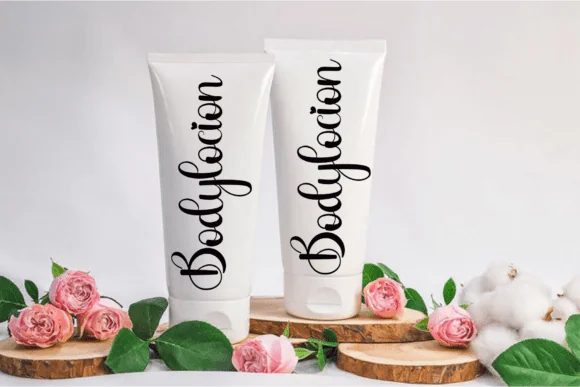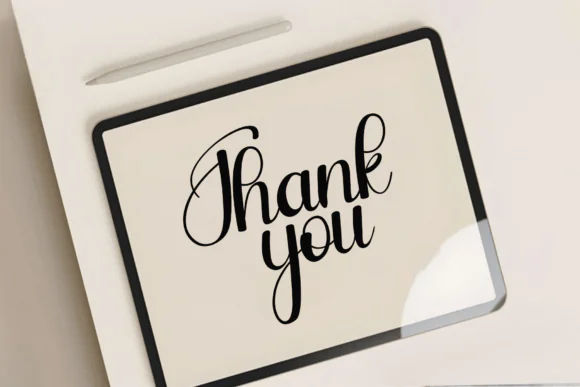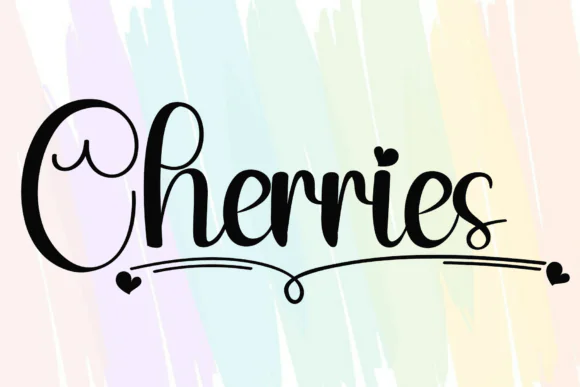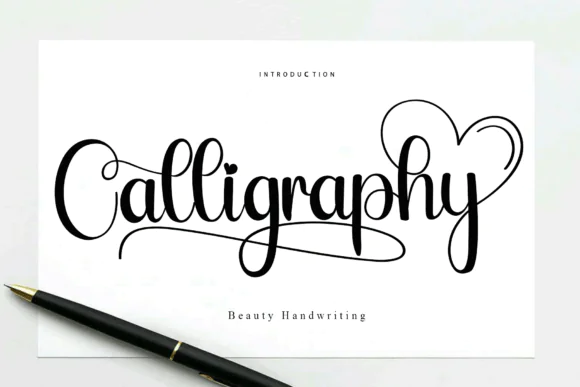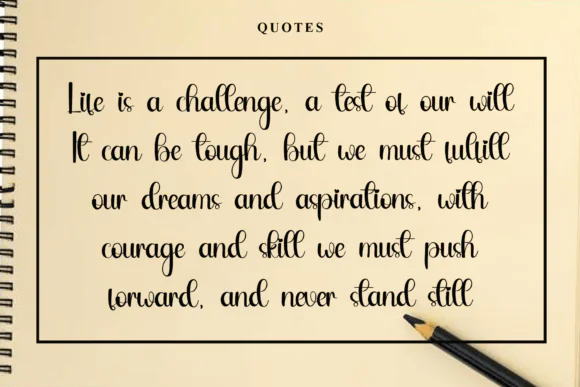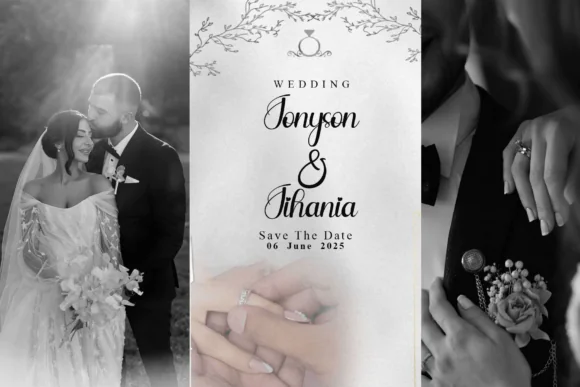
Add a soft, romantic, and elegant handwritten touch to your creative projects with Calligraphy Font, a sweet cursive script typeface designed to make your designs feel joyful, graceful, and personal. Its gentle handwritten style gives every project a fancy yet casual look, making it suitable for both formal and everyday creative designs.
This font is perfect for designers, wedding creators, boutique brands, small business owners, crafters, digital sellers, and print-on-demand creators who want to create stylish typography with a romantic handmade feel. It works beautifully for branding, logos, wedding designs, greeting cards, fashion projects, lookbooks, marketing promotions, invitations, product labels, packaging, quote designs, and social media graphics.
With its smooth cursive flow and charming personality, this font can help your designs look elegant, feminine, polished, and memorable without feeling too heavy or overly formal.
Design Style:
Sweet, cursive, handwritten, calligraphy, gentle, joyful, romantic, elegant, fancy, casual, feminine, graceful, stylish, and charming.
Use Calligraphy Font to give your projects a beautiful handwritten personality and create typography that feels romantic, elegant, and easy to love.